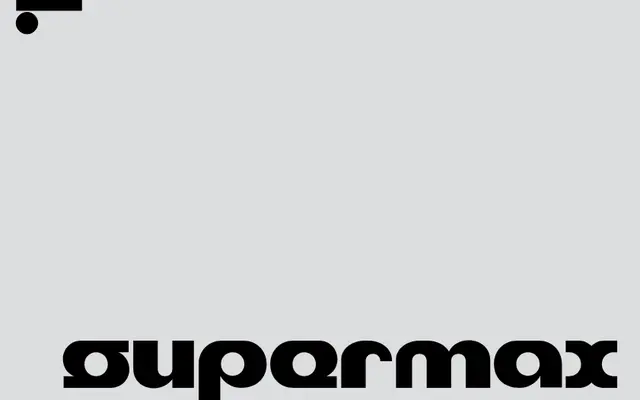
LL supermax
Lineto · Cornel Windlin, Gilles Gavillet, Pablo Desportes · 1998
A geometric display type system rooted in Max Bill's lozenge-derived letterforms, expanded from a handful of letters into three complete unicase variants.
Originally completed in 1998 by Cornel Windlin and Gilles Gavillet as a homage to Max Bill's graphic work, the typeface draws on two distinct sets of letters Bill created in 1931 and 1932 for Zurich modernist projects. Pablo Desportes returned to the source in 2024, separating Bill's vertical and horizontal approaches into two unicase alphabets, Tall and Wide, then interpolating a third Square variant between them. Stylistic sets allow variation in lettershape consistency, ranging from tightly unified geometric construction to forms recalling the 1998 original.
Derived from Max Bill's rounded lozenge letterforms, the typeface is built on a purely geometric, modular logic with no historical serif precedent, placing it firmly in the display category as a geometric display face.
TallWideSquare